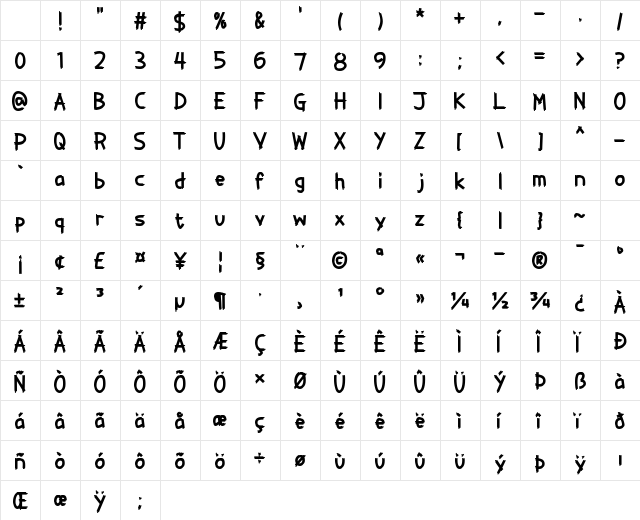
Complete Painter Decorator Regular glyph index. Displaying only characters natively supported by Painter Decorator Regular font.
Painter Decorator is a composed and adaptable typeface that performs quietly and consistently across a wide range of design contexts.